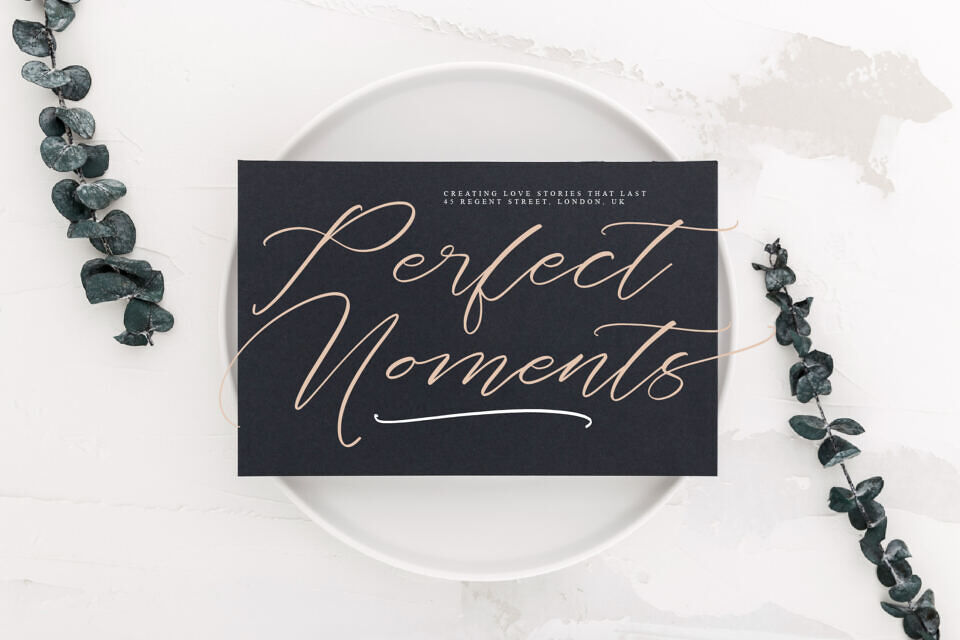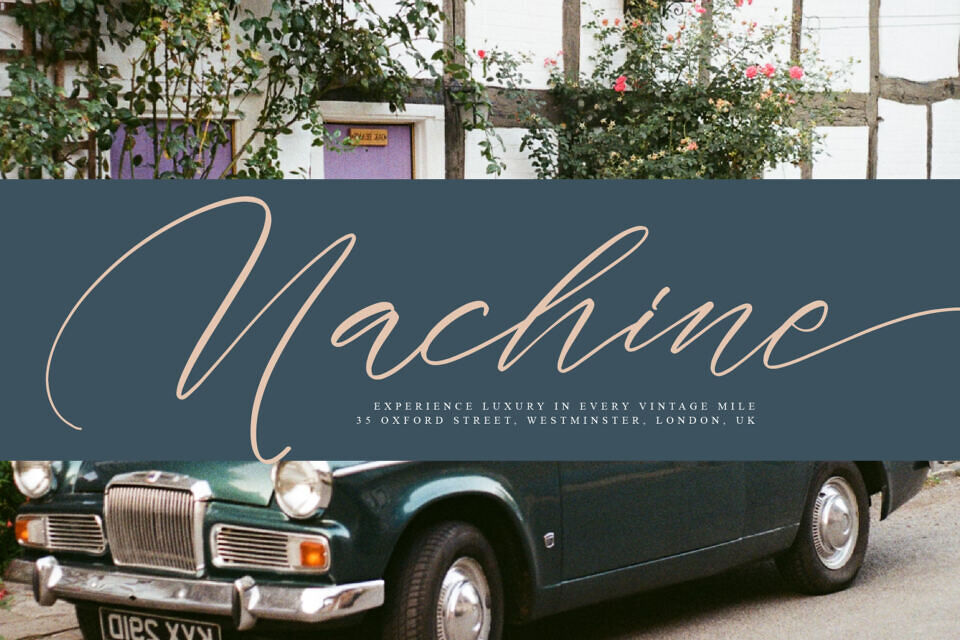
Kaithody Font
Kaithody is a modern elegant script typeface that embodies luxury, sophistication, and timeless artistry. Crafted with graceful flowing strokes, refined curves, and dramatic signature-inspired swashes, this typeface delivers a distinctive visual presence that instantly elevates premium design projects.
Designed for creatives and brands that value exclusivity and elegance, Kaithody combines contemporary calligraphic expression with high-end editorial aesthetics. Every character is carefully drawn to create a harmonious rhythm, allowing words to flow beautifully while maintaining exceptional readability and visual impact.